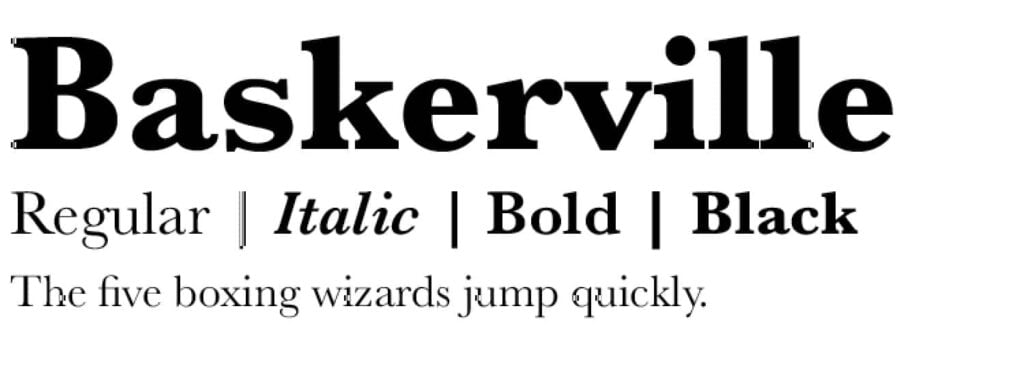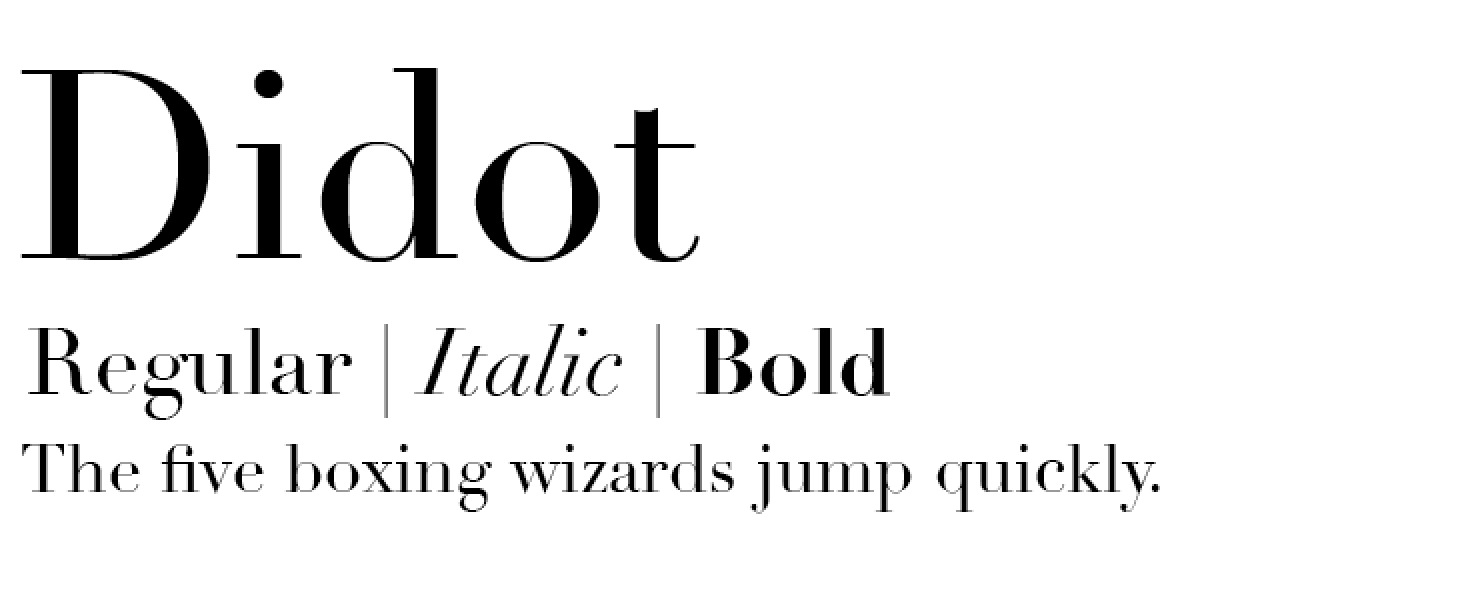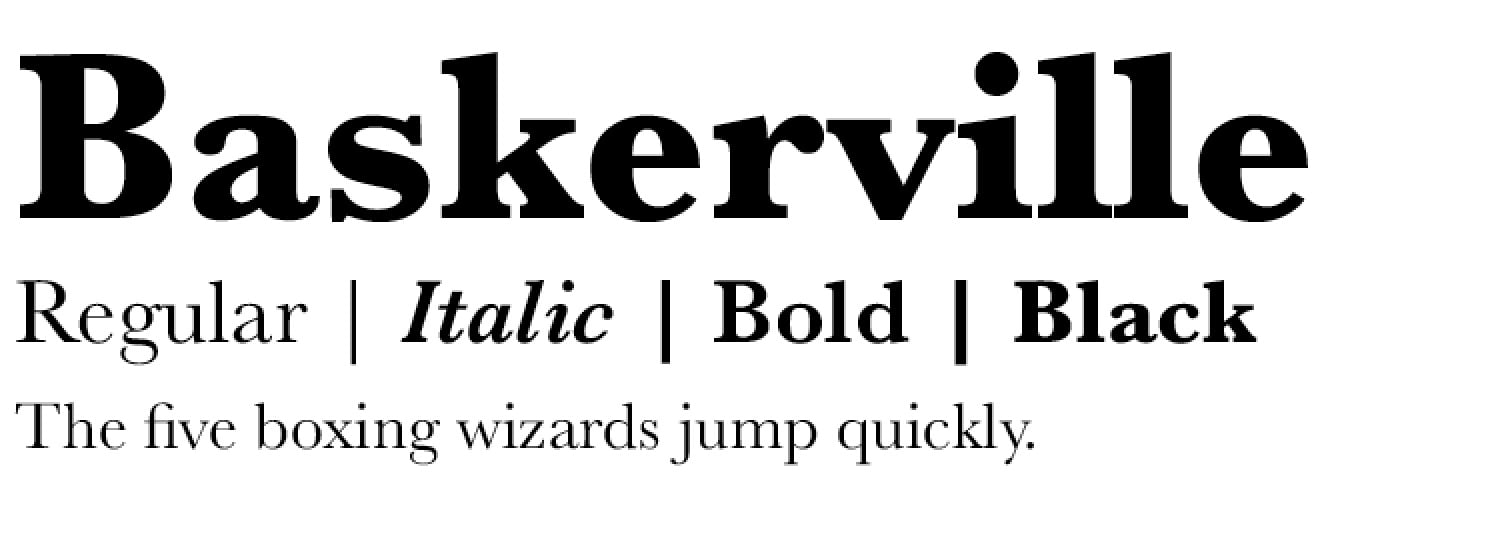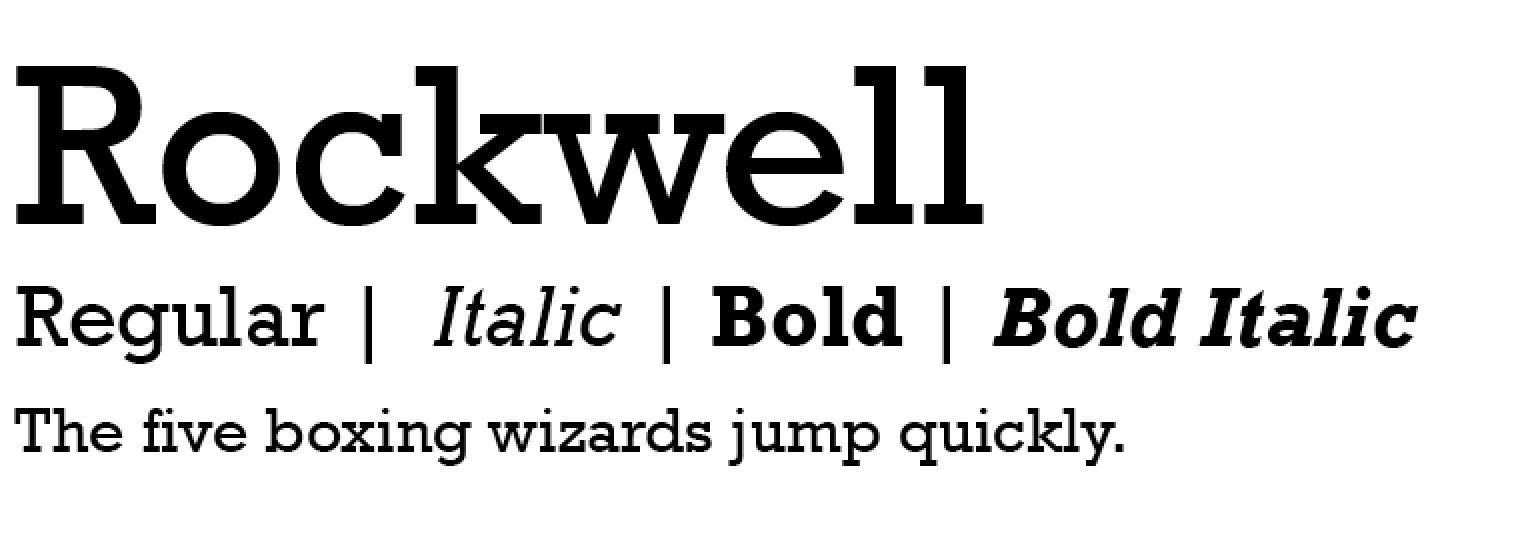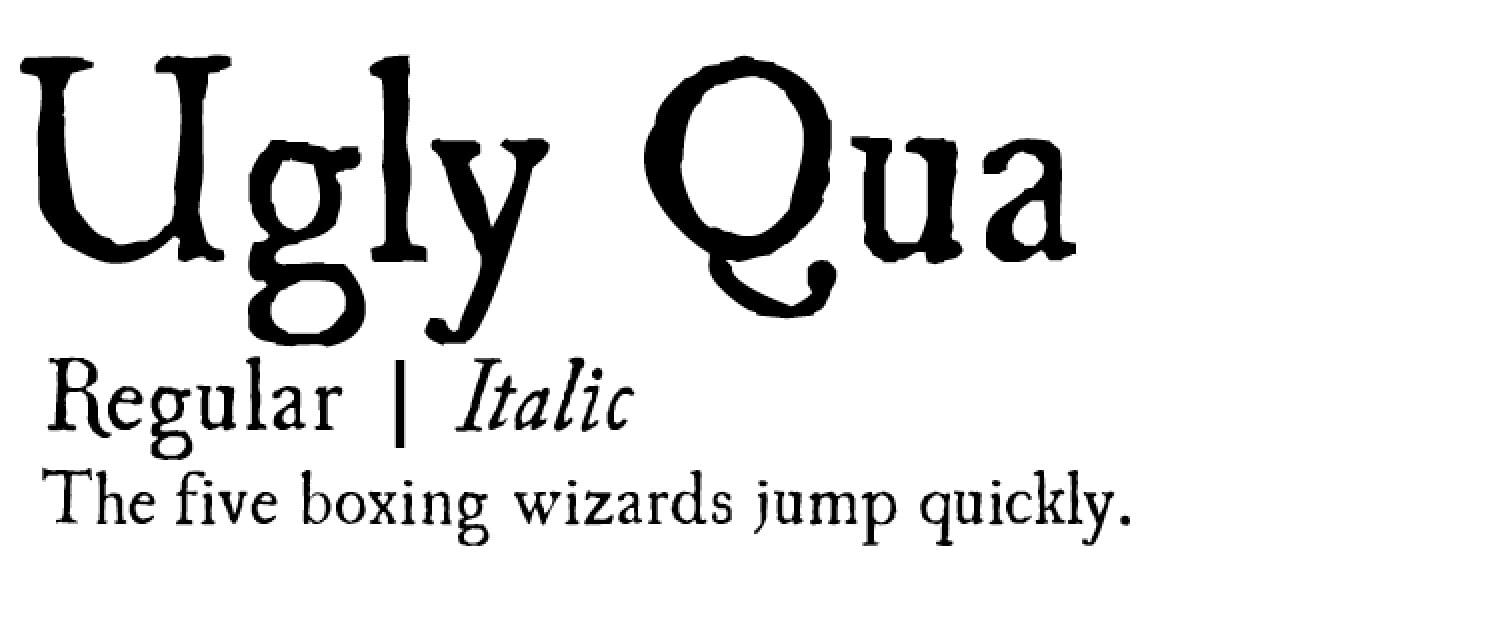
Looking for some excellent modern fonts? Look no further.
I love Modern Serif Fonts!
I’m not one of those people that think that serifs mean something is old our outdated. I believe serif fonts are readable, legible, and can come off in a very classy but sophisticated way. Here are some modern serif fonts to consider!
Georgia has a classic look, but it is clearly a modern alternative to some other outdated and overused serifs. Georgia is designed for clarity on a computer monitor even at small sizes, partially effective due to a large x-height.
Bree Serif is a unique but not overly frilly slab serif that has just enough character to really give it a unique feel, without it being overly stylized.
Didot has some hairline elements in it that can disappear it smaller sizes, but it is nonetheless a high contrast, modern serif winner that is an important addition to the font lovers arsenal.
Museo Slab is a ridiculously good looking slab serif with a ton of heart and an endless amount of ways to pair it. As a title font it has character and panache.
Bodoni feels a bit more classic than modern, but it’s versatility as a classic font earn it a place on the modern serif fonts list as it’s uses could be very modern indeed.
Baskerville is another case of classic with modern uses. Don’t be afraid of going classic in a modern setting.
Rockwell is a seriously cool serif font with a bit of a hipster vibe, and a diverse array of uses limited only by your imagination.
Ugly Qua is probably my favorite font on this list perhaps because of it’s tastefully unique character – if you like this, you may like our ‘hipster fonts‘ post. It’s a display serif perhaps, and it’s uses could be in a place where you’re looking for a vintage font, but perhaps in a place where elegance is key it would play well as a refreshing juxtaposition.